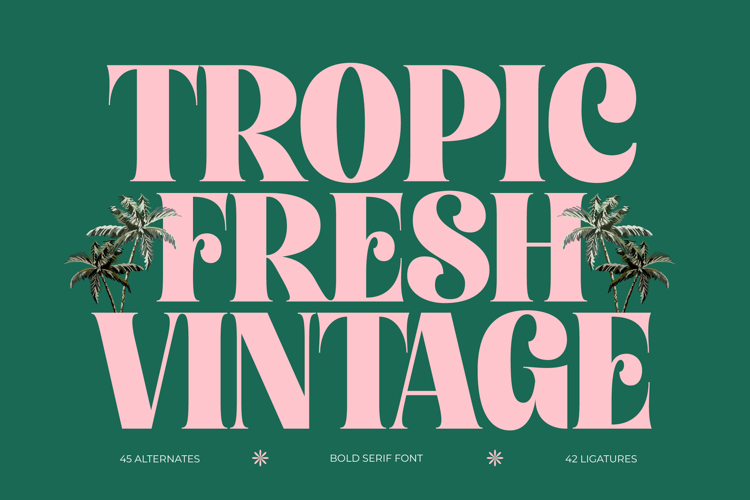
Tropic Fresh Vintage - Bold Serif Font
Tropic Fresh Vintage - Bold Serif Font embodies a sophisticated yet playful charm, perfect for designs seeking a truly distinctive voice. Its bold, high-contrast serifs and elegant, flowing curves evoke a timeless allure, seamlessly blending vintage sensibilities with a contemporary edge. This captivating font makes an undeniable statement, ensuring your message is both memorable and stylish.
Beyond mere letterforms, discover a wealth of creative possibilities with this exceptional typeface. Featuring an impressive collection of 45 alternates and 42 ligatures, Tropic Fresh Vintage - Bold Serif Font offers unparalleled design flexibility. These meticulously crafted variations allow for truly unique typographic compositions, enabling designers to infuse every headline, logo, and branding element with bespoke character and flair.
Transform your visual identity into an unforgettable experience with this versatile font. Tropic Fresh Vintage - Bold Serif Font is ideal for luxury branding, upscale packaging, boutique hotel collateral, high-end editorial design, and invitation suites. It’s perfect for display purposes, eye-catching headlines, and any project demanding a touch of vintage sophistication with a bold presence. With its extensive multilingual support, Tropic Fresh Vintage - Bold Serif Font adapts seamlessly across global markets, making it incredibly versatile for international projects.